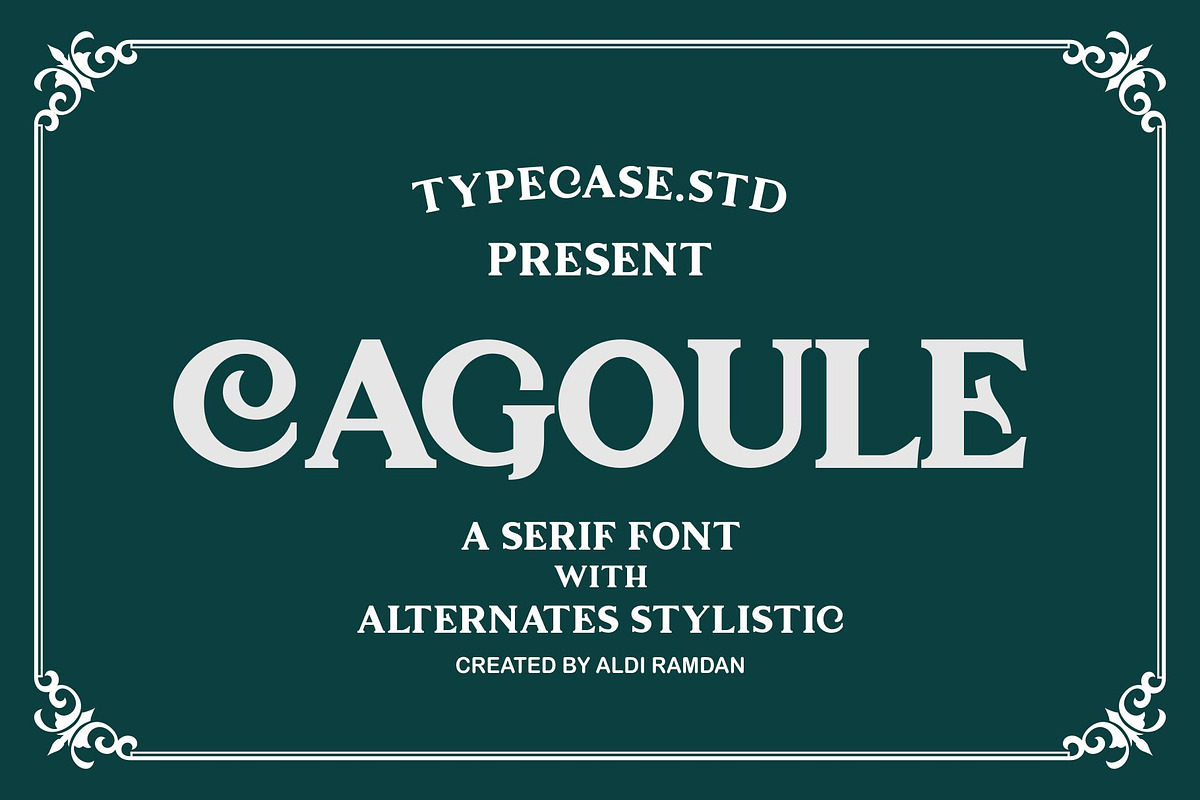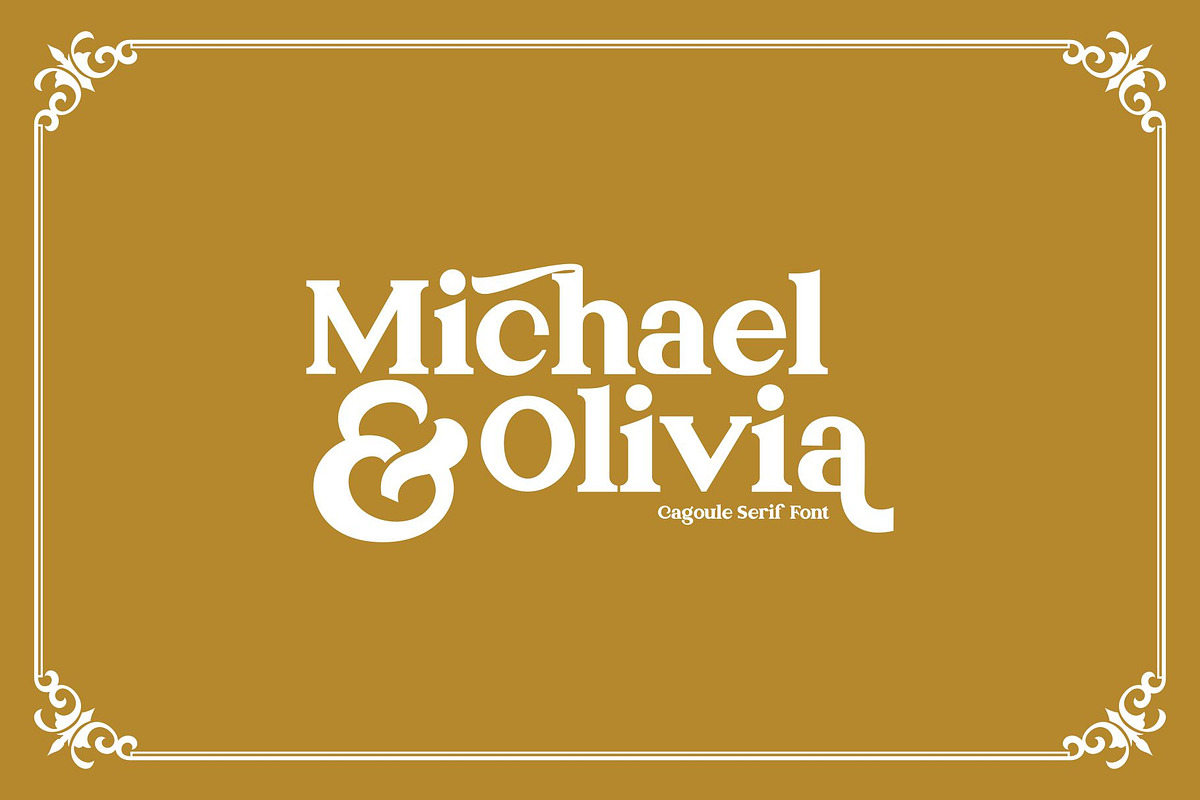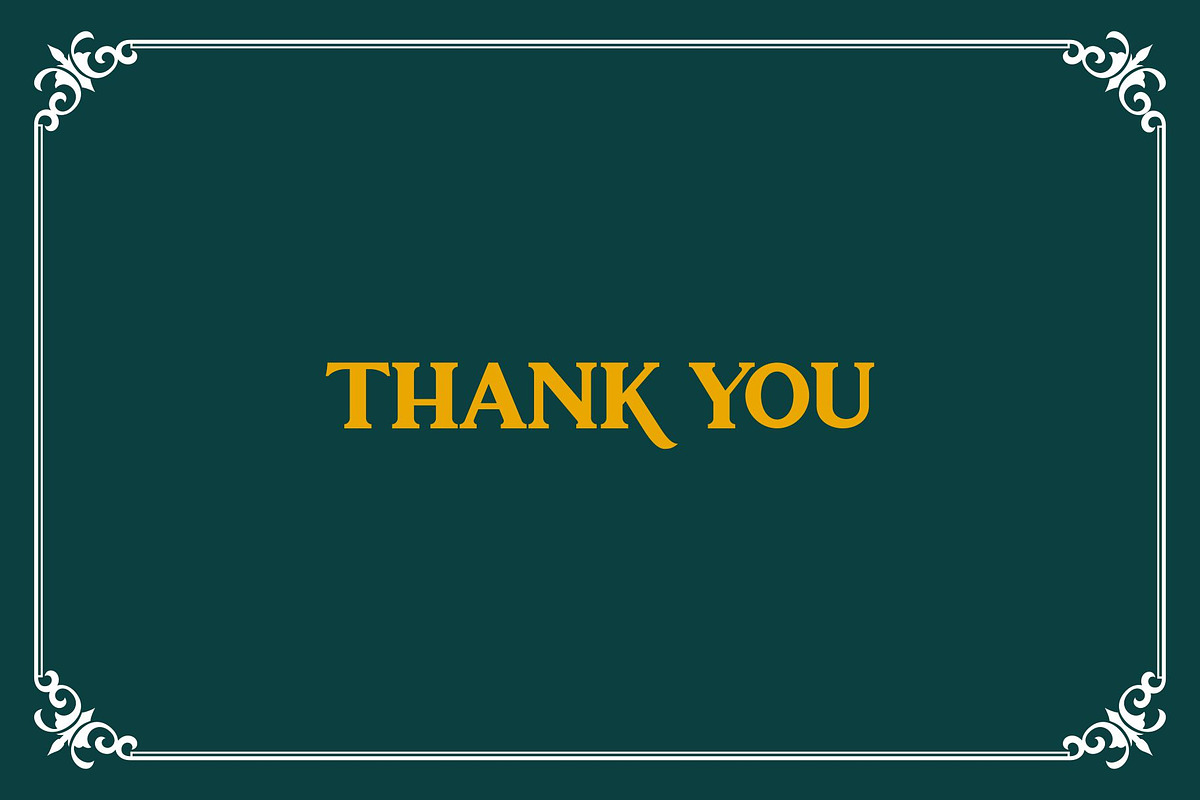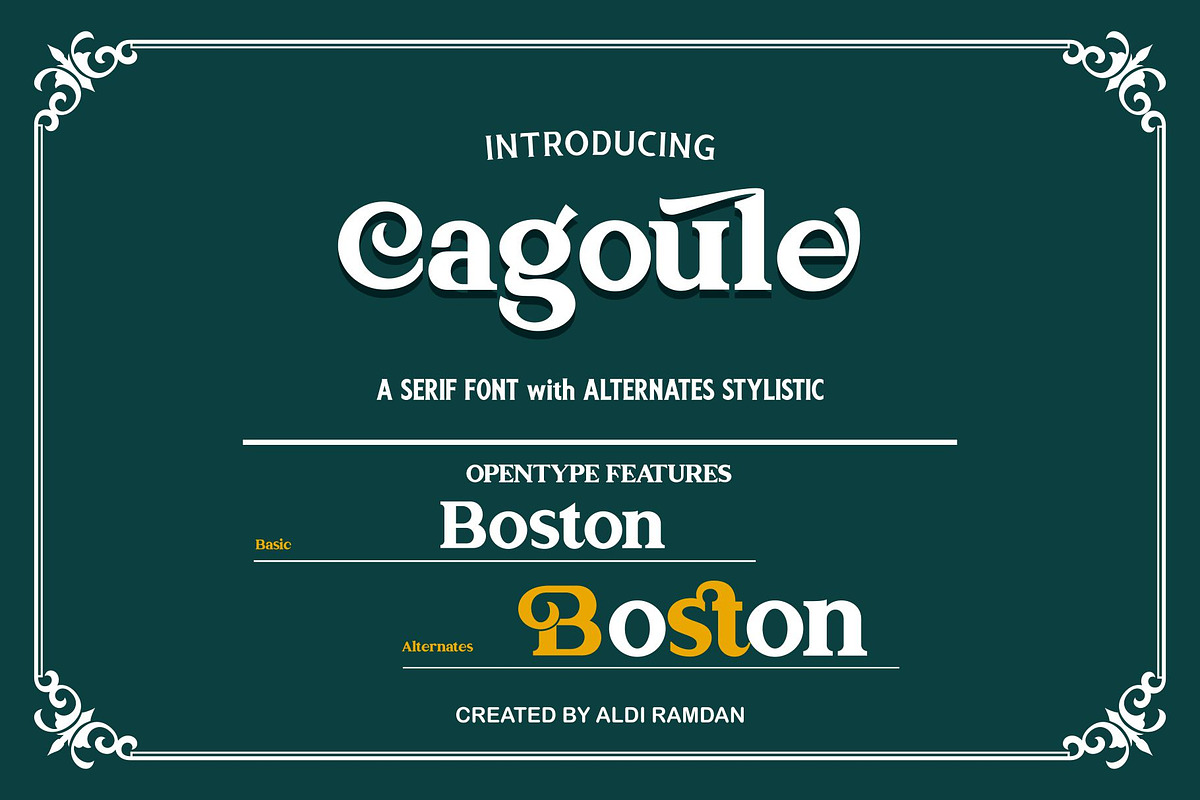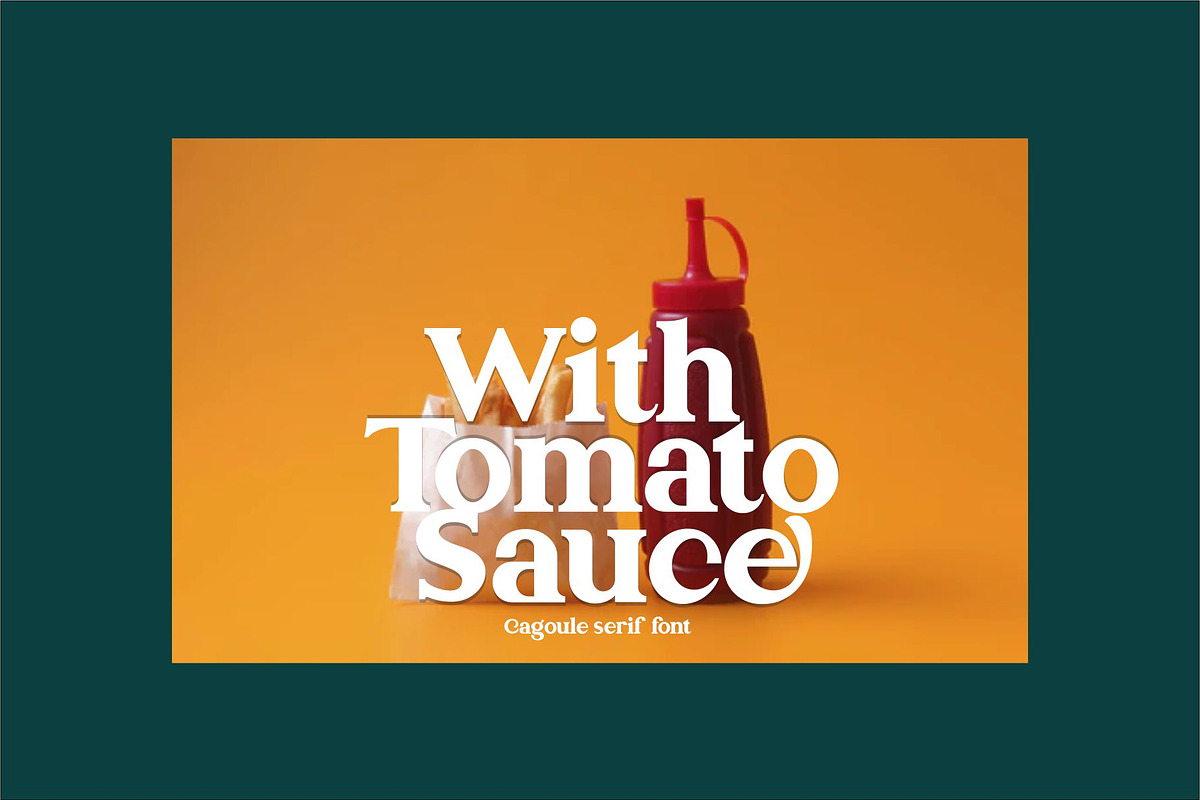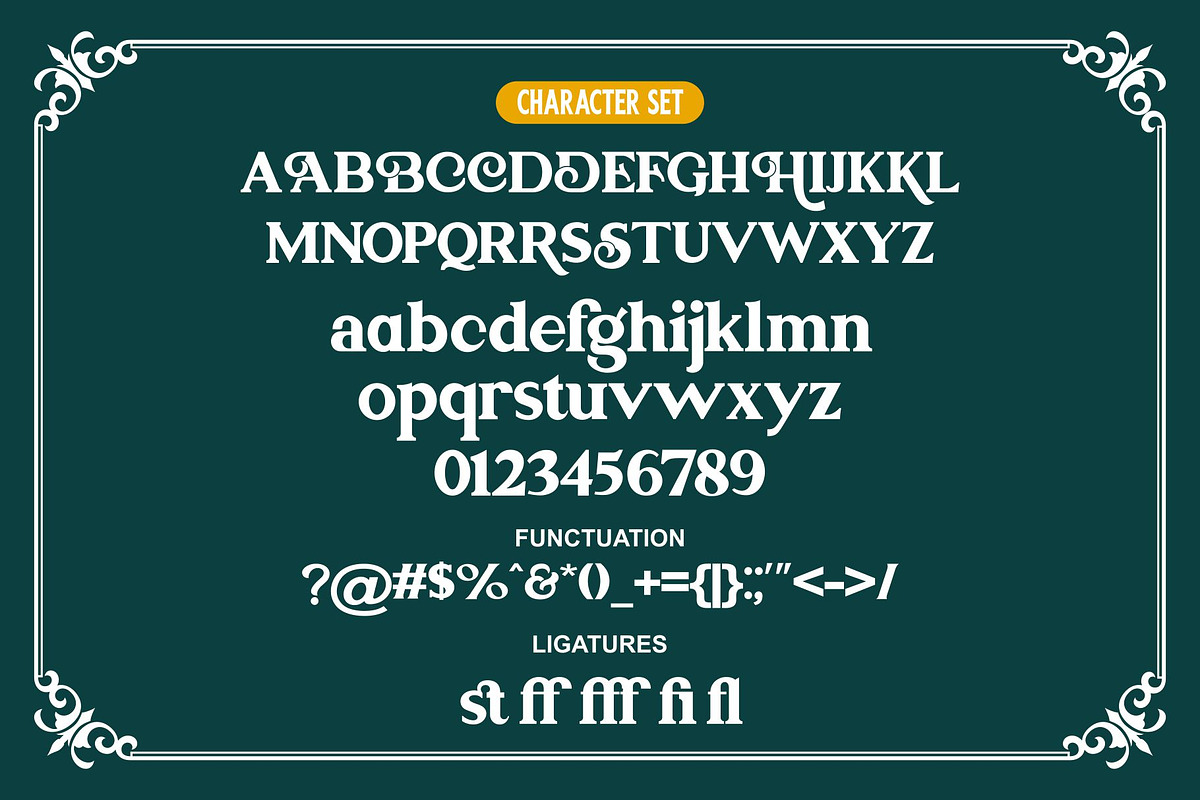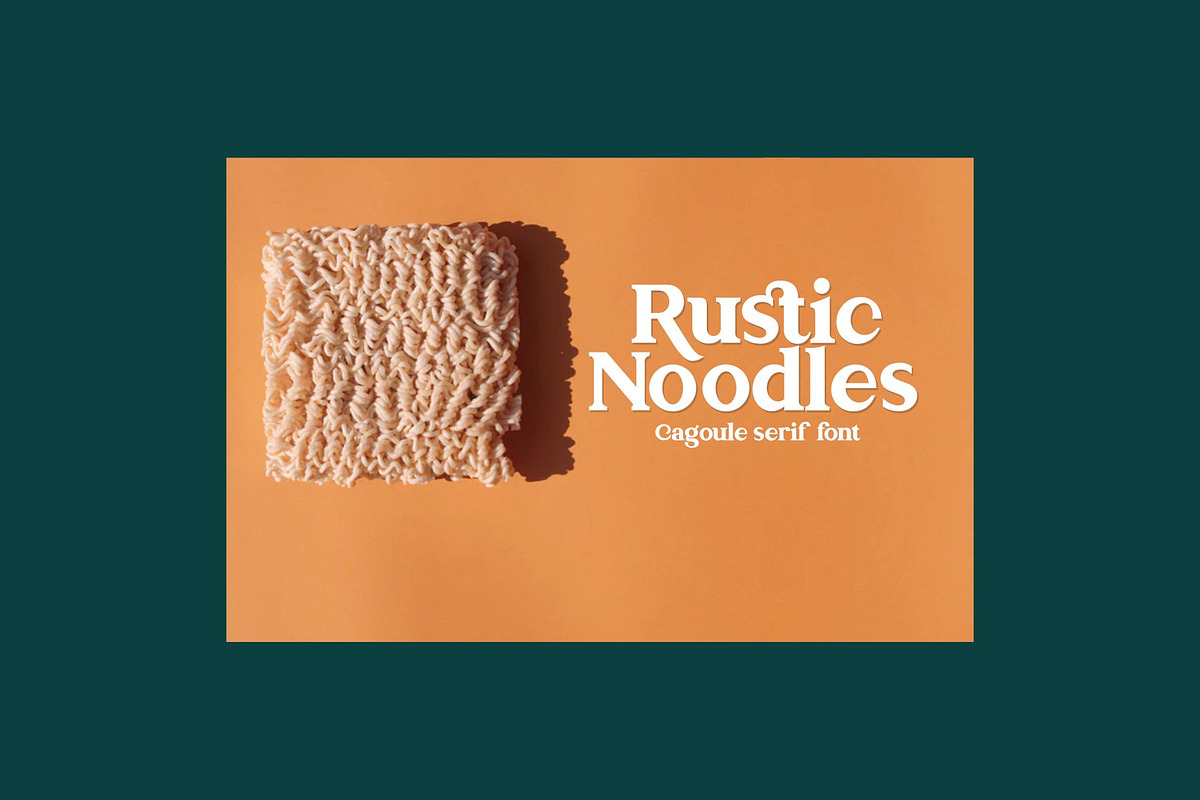
Cagoule Modern/Vintage Display Font
Introducing "Cagoule" - a new serif font with modern and vintage curves.
Beauty between Modern or Vintage
If you're using Retro Vintage: Access your OpenType features to access a large selection of alternative fonts and ligatures, pick the font you like from a large variety to get the vintage look you're looking for. Vary between light and heavy vintage looks based on the number of letters you change.
Because of its split personality, Cagoule is a very versatile font, spanning a wide variety of projects, from bold magazine imagery, to wedding invitations, to branding, poster design, and more.